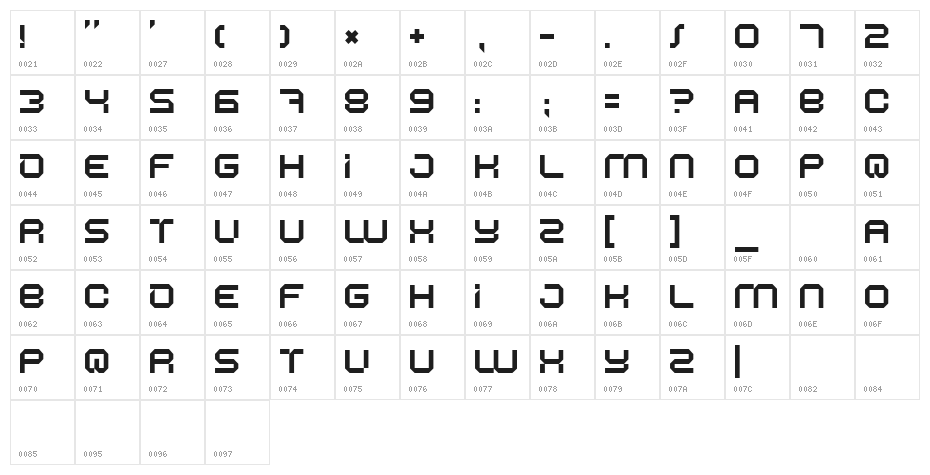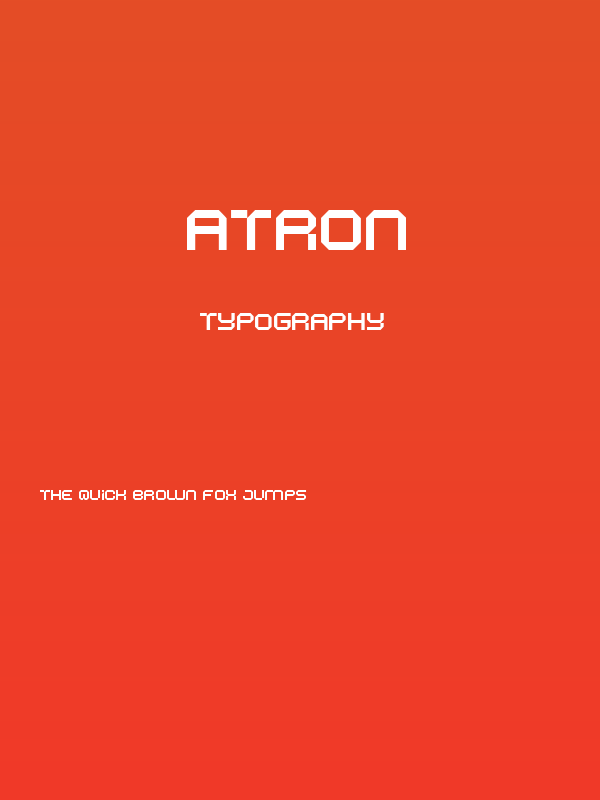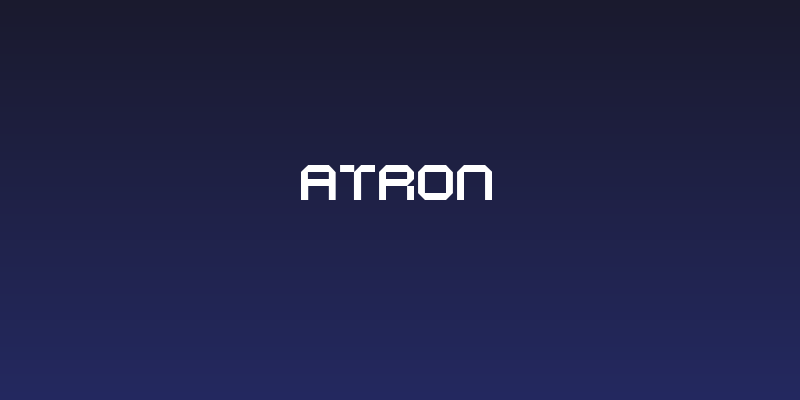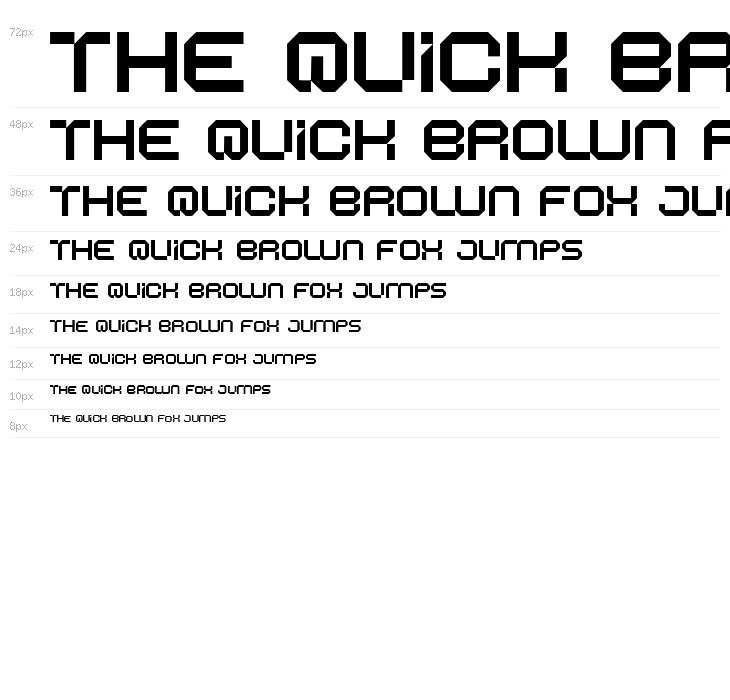
ATRON Font
ATRON Description
This font features a geometric and futuristic design, characterized by its bold, angular shapes and clean lines. The uppercase and lowercase letters maintain a consistent height, creating a uniform appearance. The numbers and special characters are crafted with the same angular precision, enhancing the overall cohesive look. The font's structure is reminiscent of digital or technological themes, making it ideal for projects that require a modern and edgy aesthetic. Its distinct style ensures high readability while maintaining a unique visual appeal.
Use CaseLogos, Headlines, Digital interfaces
Proposed ProjectsIdeal for technology branding, digital interfaces, video game graphics, and modern advertising.